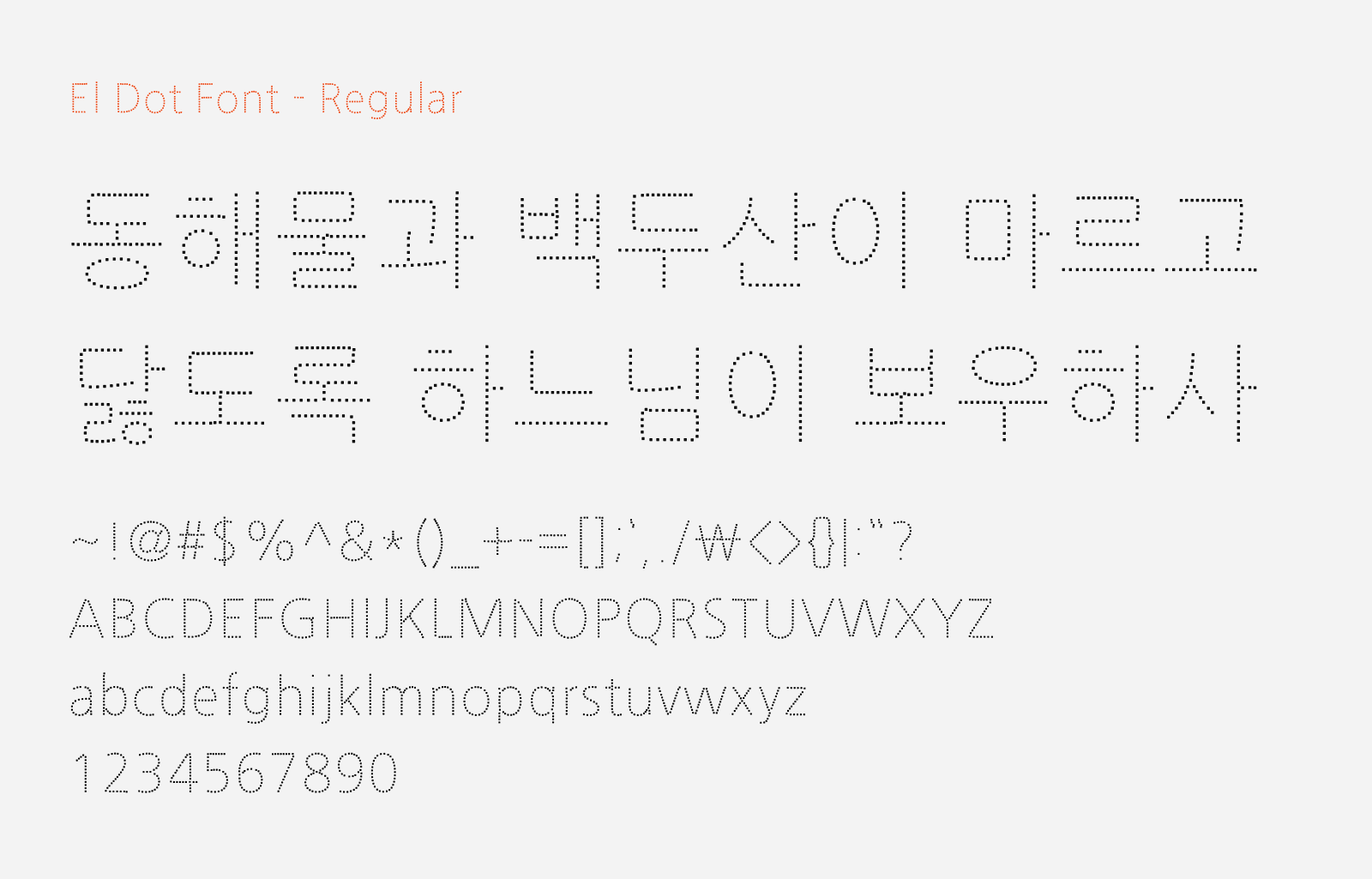
El Dot Font
Preview of El Dot Font, a dotted style free Korean font
El Dot Font (엘점선체) is a sweet, practical little font born out of a very relatable problem: a parent looking for a dotted-outline typeface to help their child practice writing Hangul and not finding quite the right one, so they made their own. It follows the familiar dotted-guide format from any elementary Hangul workbook, with hollow, evenly-dashed outlines for each stroke that give a child’s pencil a clear path to trace. Since this font is made with the intention for writing practice, which means that it’s suitable for print with large font sizes, as the dots are ever so fine to be used on small font sizes. One alternative to add a stroke to thicken the dots to make it more visible.
The font is built on top of Naver’s Nanum Gothic Eco, reshaped into this dotted-outline treatment rather than drawn from scratch. The creator also mentioned that it wasn’t produced with precision which may have a few rough or awkward spots here and there. But since it’s for writing practice and tracing purposes, it works exactly what it needs to. This font is free to download and it’s released under SIL Open Font License.